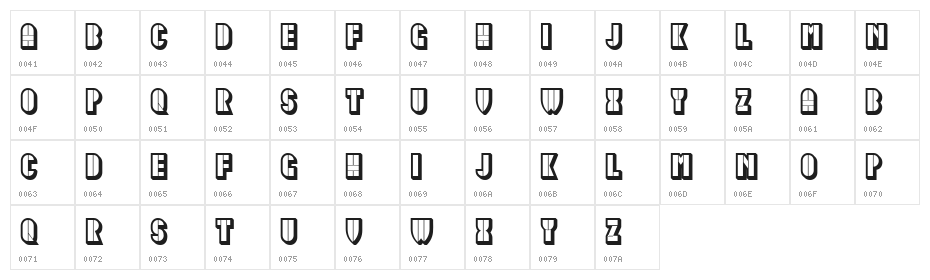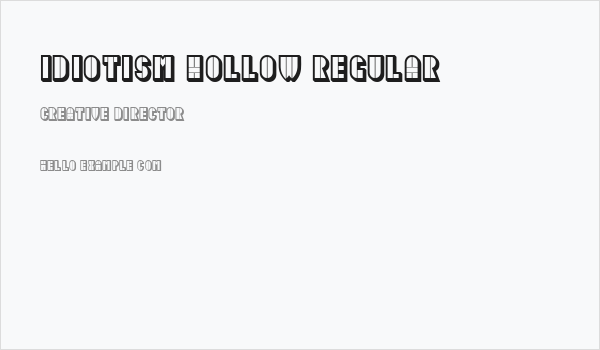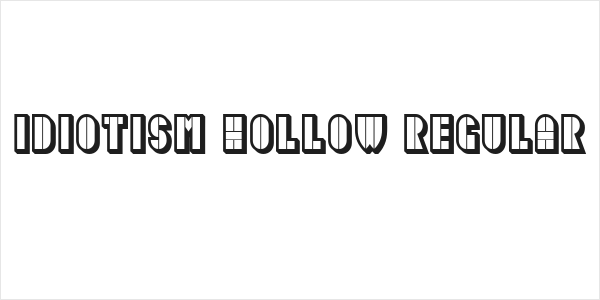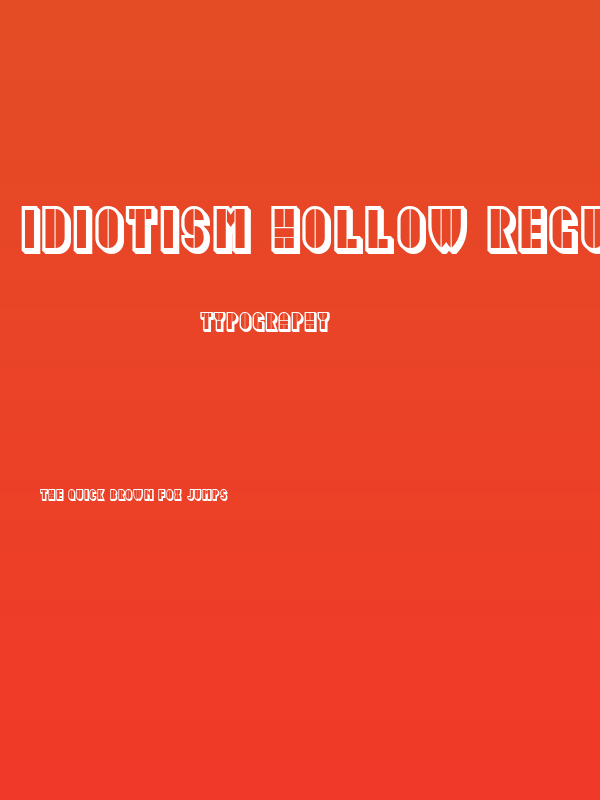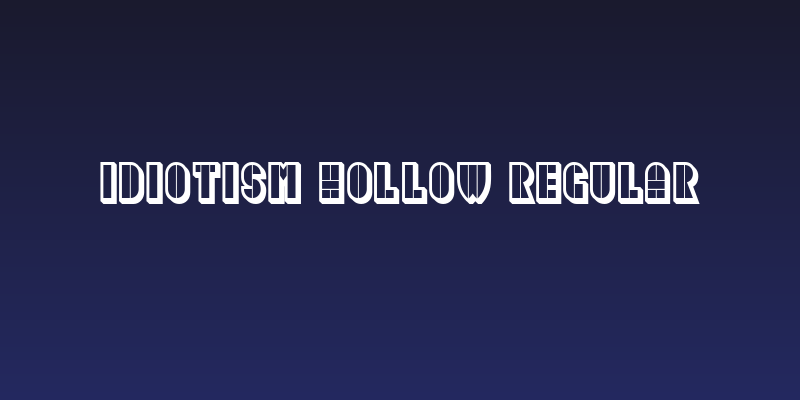
Idiotism Hollow Regular Font
Idiotism Hollow Regular Description
This font features a bold, hollow design with a geometric and structured appearance. Each character is outlined with a thick border, creating a striking contrast between the inner and outer spaces. The letters are uppercase and have a block-like form, with some characters incorporating unique internal patterns that add a decorative touch. The overall style is modern and eye-catching, making it suitable for attention-grabbing headlines or creative projects. The font's distinct hollow design gives it a three-dimensional feel, enhancing its visual impact.
| Proposed Projects | Ideal for posters, logos, headlines, and any design requiring a bold and modern aesthetic. |